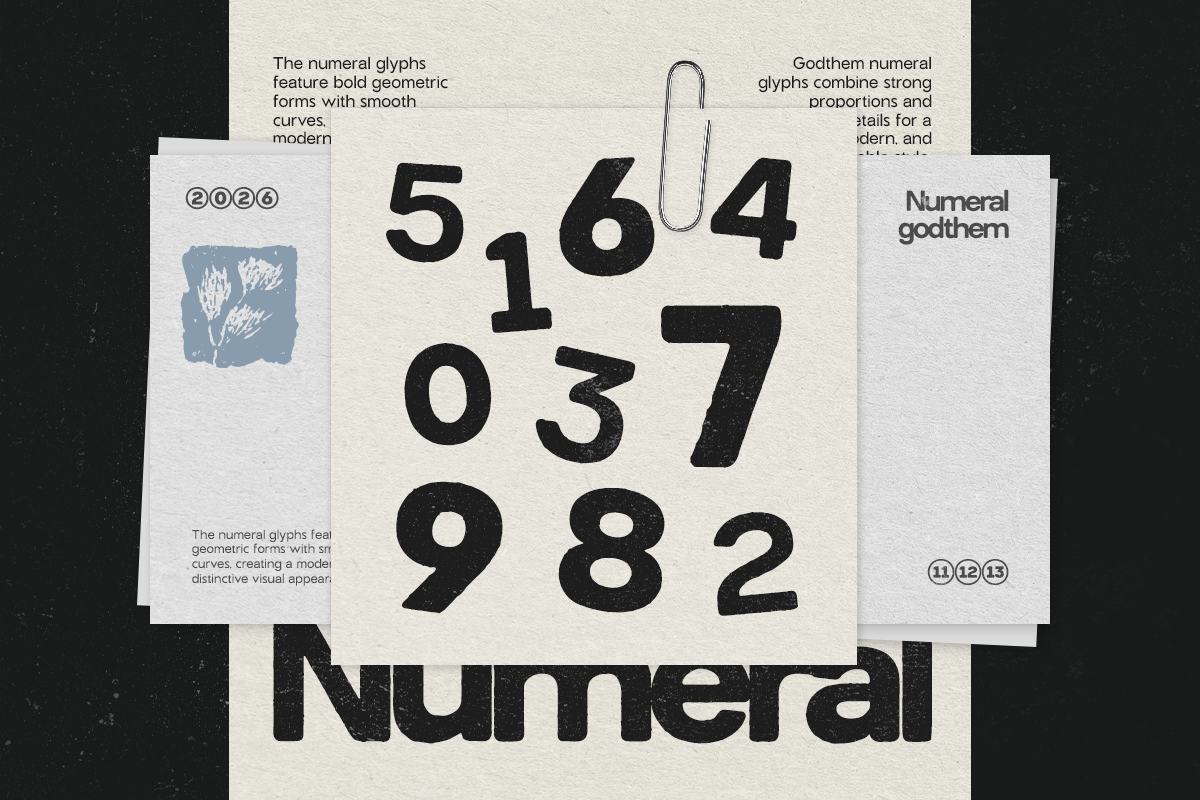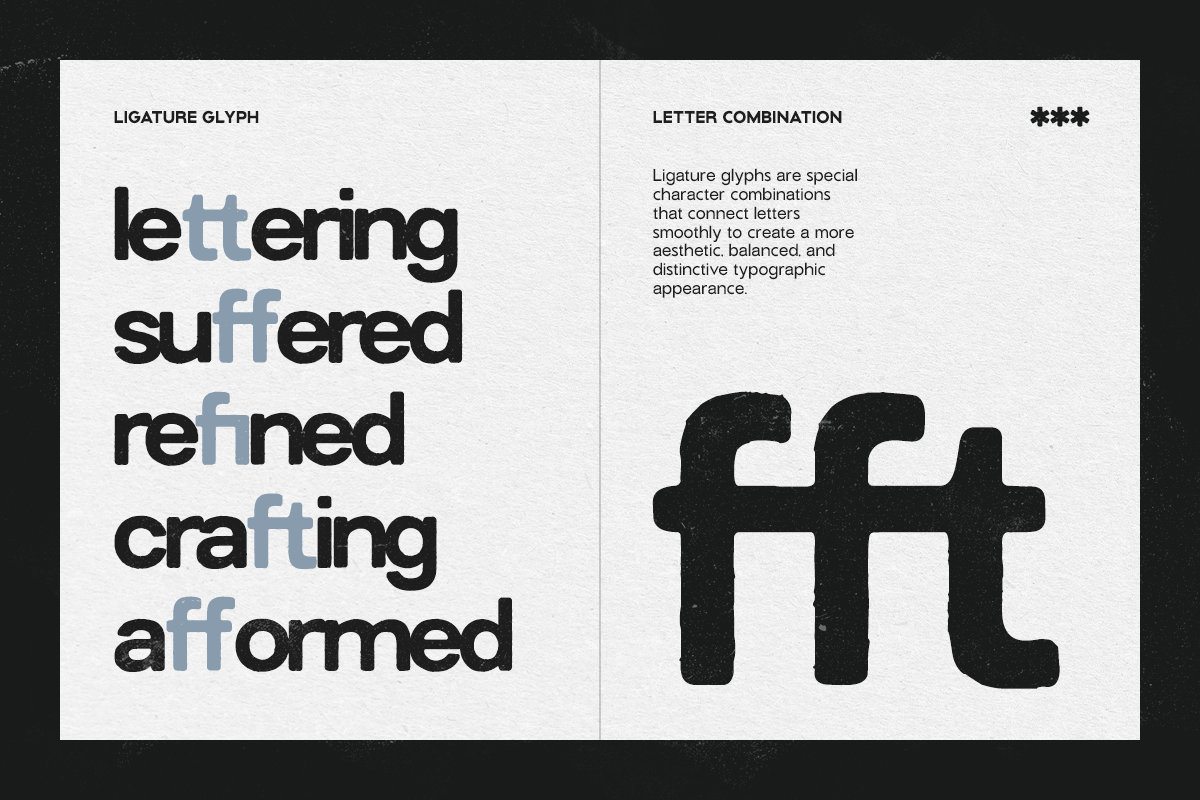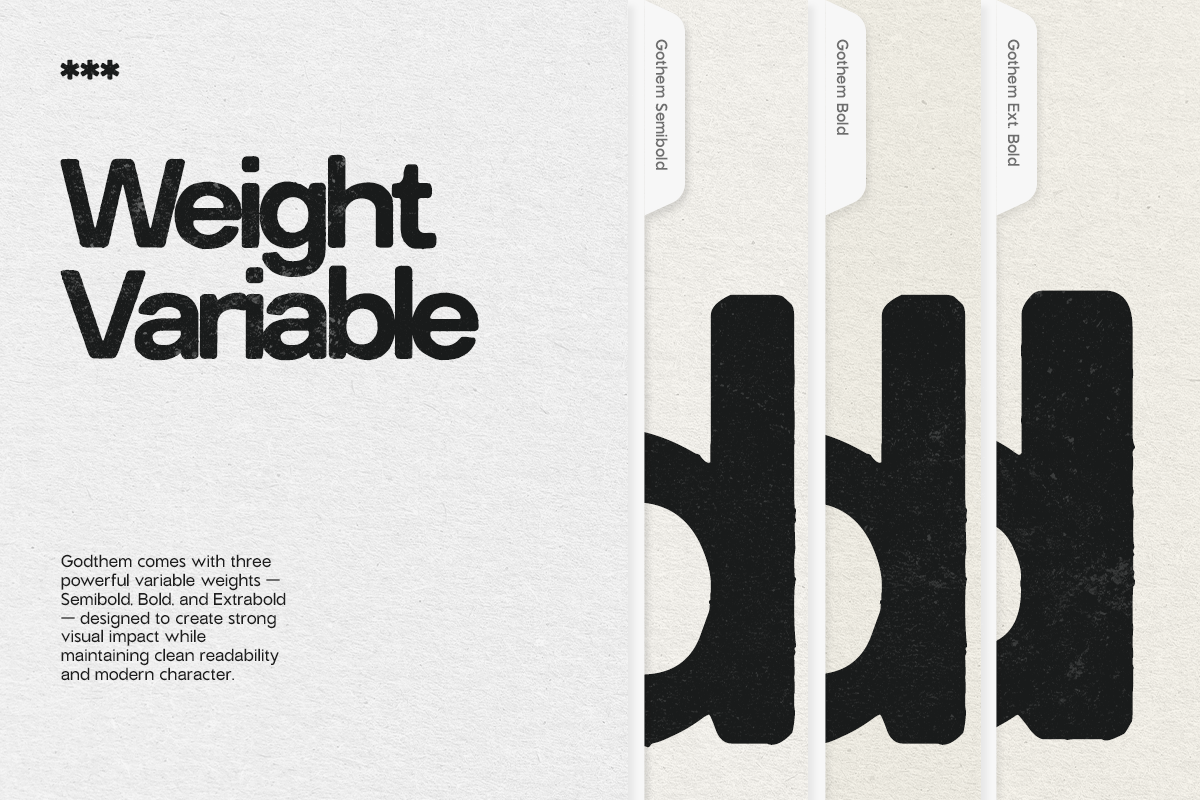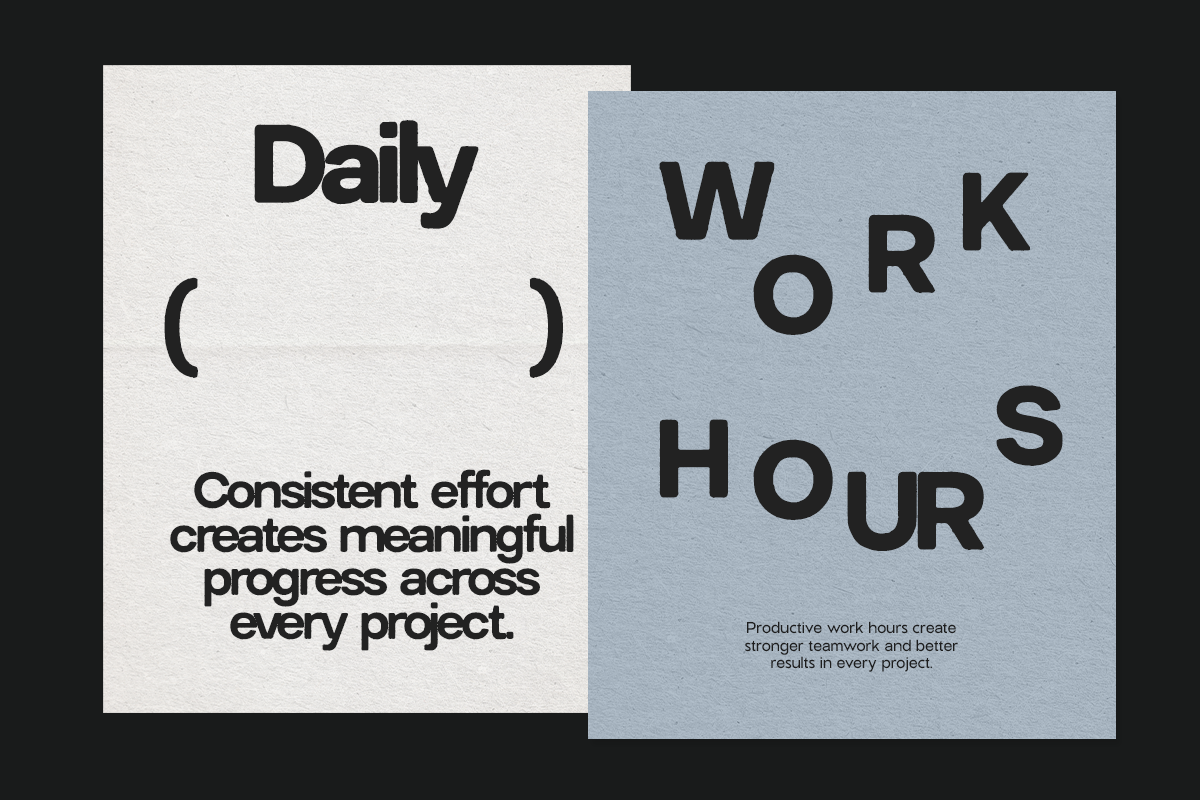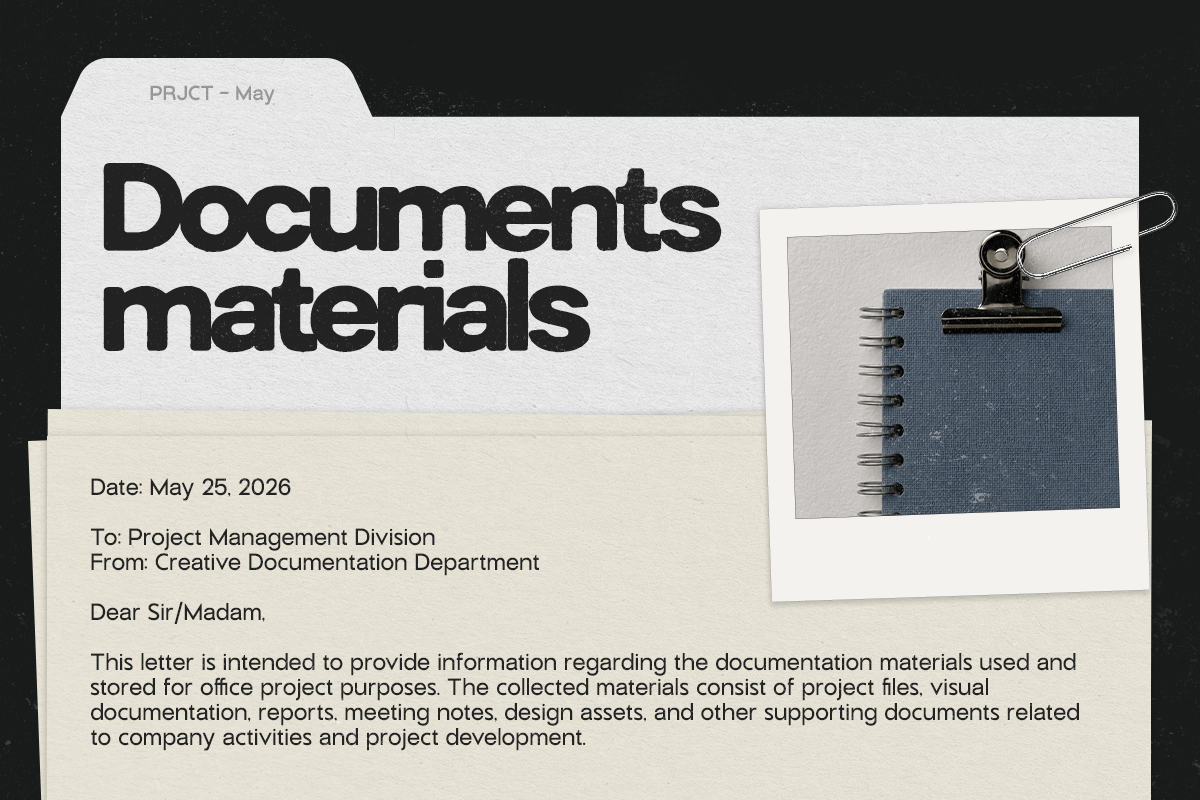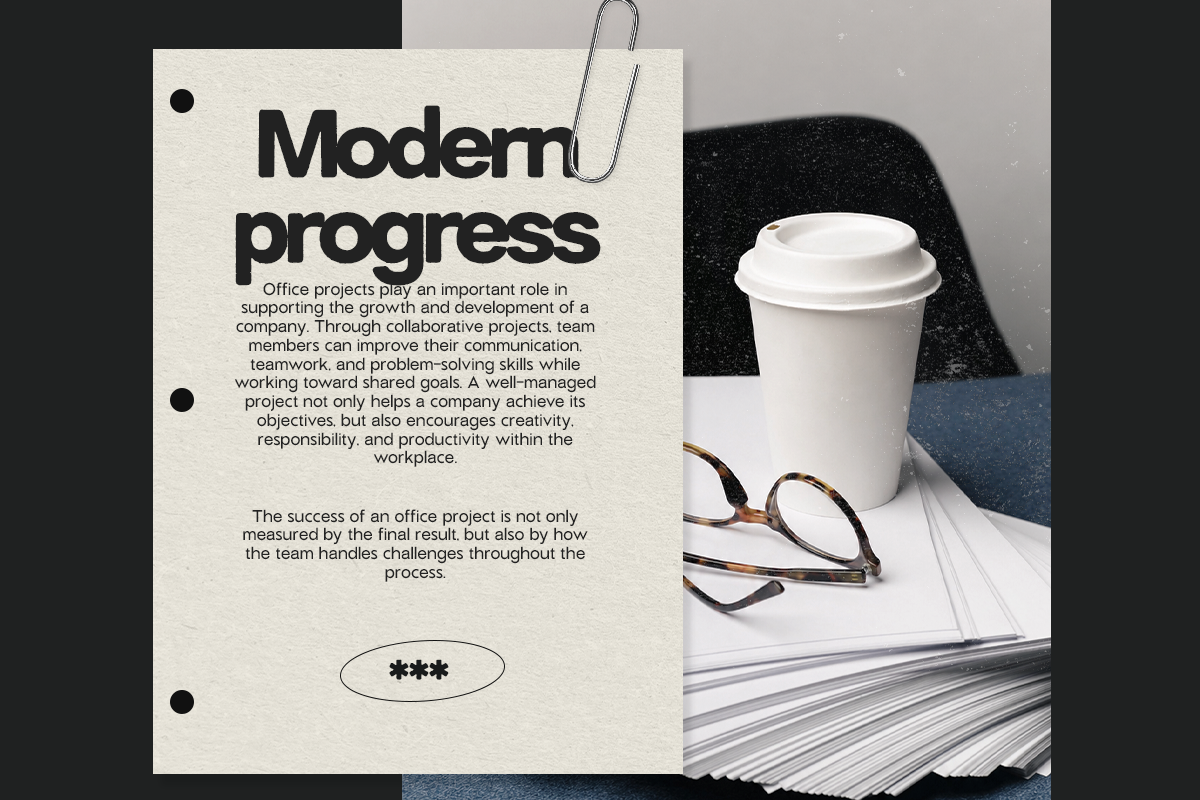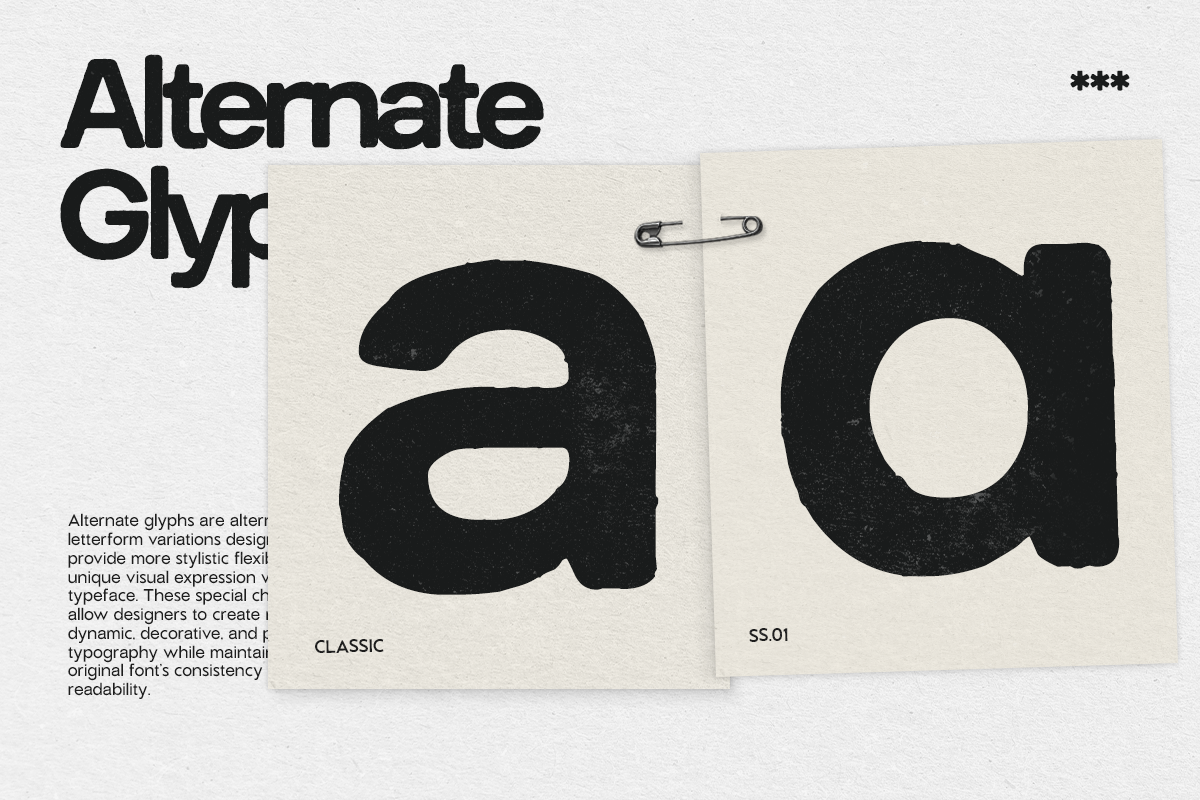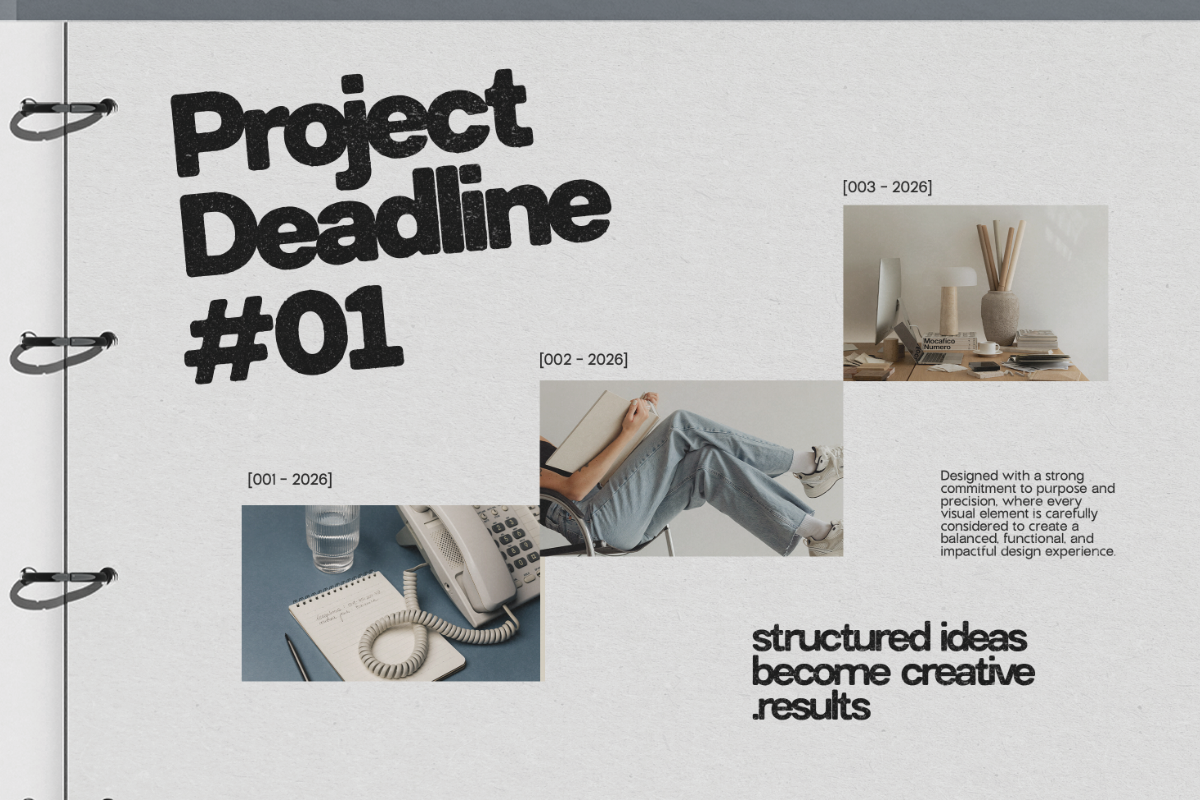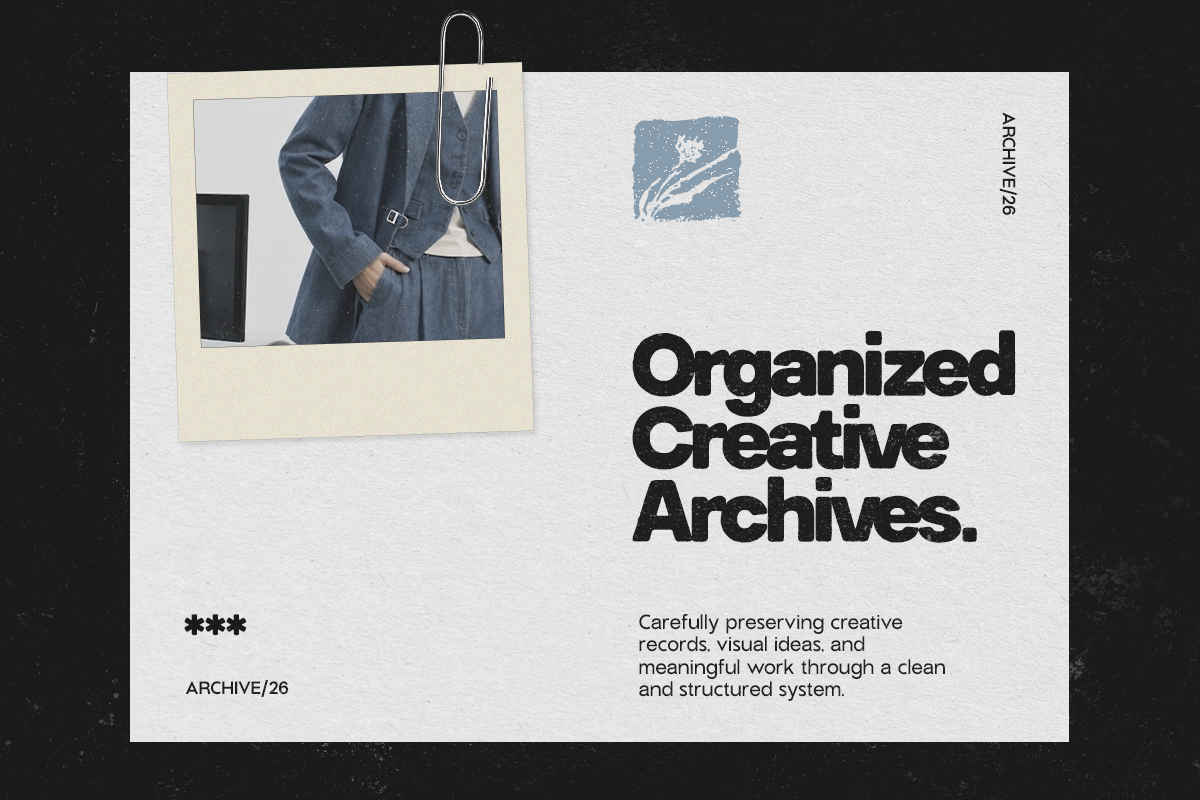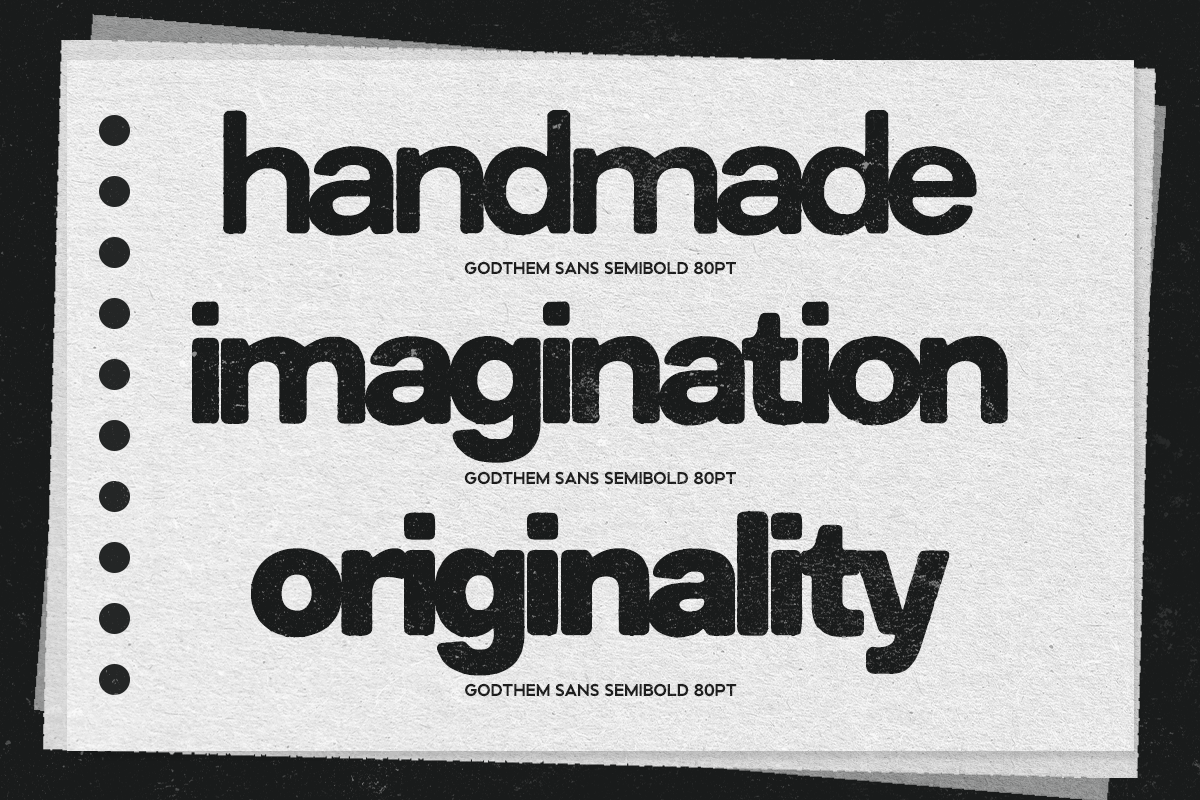
GC Godthem - Display Grunge Sans
GC Godthem – Display Grunge Sans is a bold display sans typeface designed to deliver raw energy, rebellious character, and striking visual impact. Built with strong letterforms and distressed grunge textures, Godthem creates an expressive typographic voice that feels unapologetic, bold, and full of attitude.
With its rugged details, worn edges, and powerful structure, GC Godthem blends modern sans-serif clarity with an authentic grunge aesthetic. The distressed appearance adds depth and personality, making every headline feel dynamic, aggressive, and visually memorable.
As a variable typeface, GC Godthem offers flexible weight control, allowing designers to create impactful hierarchy while preserving its distinctive grunge character across every style. From bold streetwear branding to underground music visuals and edgy editorial layouts, the font maintains a strong and recognizable presence.
Variable Font (Adjustable Weight Axis)
Display Grunge Sans Construction
Distressed & Textured Letterforms
Bold Urban Character
Multilingual Support (170+ Languages)
GC Godthem — raw, bold, and unapologetically grunge.